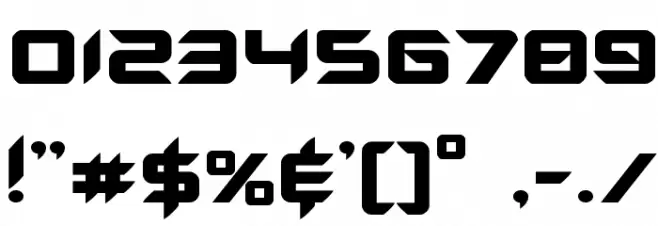
Hollow Point Expanded Font
Hollow Point Expanded Description
This font features a bold, futuristic design with angular and geometric shapes. The characters are constructed with sharp edges and a consistent thickness, giving it a strong and impactful appearance. The style is reminiscent of digital or sci-fi themes, making it suitable for modern and tech-oriented projects. The uppercase and lowercase letters maintain a uniform design, ensuring readability while adding a unique flair. Numbers and special characters are crafted with the same attention to detail, providing a cohesive look across all elements.
A bold, angular font with a futuristic, geometric design from Uncategorized fonts.
- Proposed Projects: Ideal for tech branding, video game titles, sci-fi posters, and modern digital interfaces.